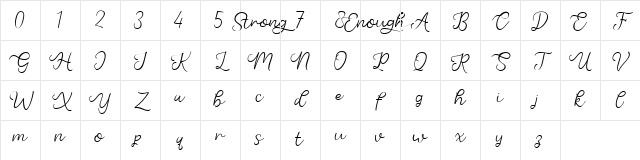
Strong Enough Regular
Foundry: Epiclinez
Designer: Aldy Epiclinez
Design Context for Strong Enough
Strong Enough is a composed and adaptable typeface that performs quietly and consistently across a wide range of design contexts.